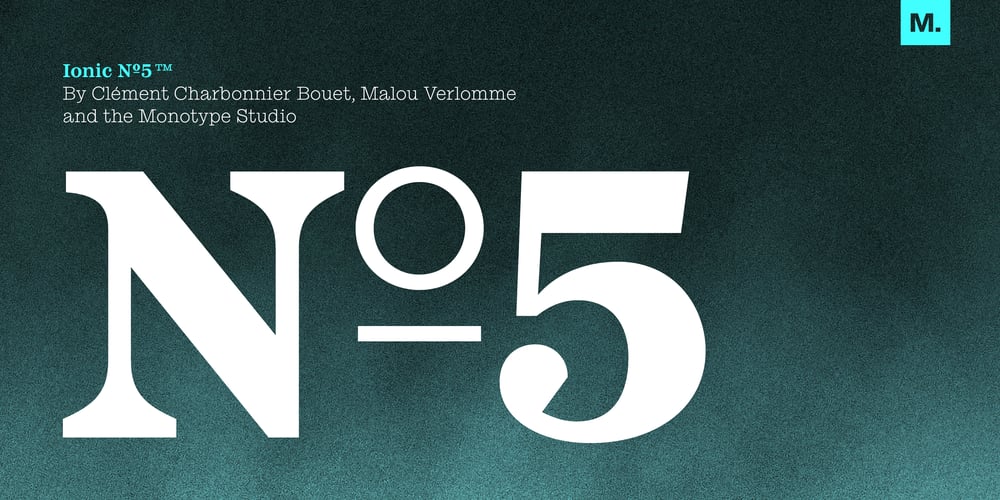
Ionic No 5 Font Family was designed by Malou Verlomme, Clement Charbonnier Bouet and published by Monotype. Ionic No 5 contains 10 styles and family package options. Ionic No5 is a refresh of a classic Linotype Clarendon-style serif, another restored classic from the Monotype library, much like the recent updates to Walbaum and Helvetica Now. The original typeface was designed to be printed and read at small sizes, popular with newspapers in the 20th Century at its birth. The restoration and refinement of this typeface has bestowed a greater sense of clarity and directness, smartly stylish, and an utterly captivating appeal. Because these styles were so popular for books and newspapers for so long we associate them with being editorial or bookish, not dull, but thoughtful. Designers today can use that association to their advantage as a visual shortcut to convey similar meaning and tone. More attention was given on modernising the typeface with precious use and the introduction of sharp edges & finishes. The thinnest weights can give a dancing typewriter aesthetic, being low stroke contrast. The heavy weights have an unquestionable presence on the page. Overall, the typeface has a richness and almost illustrative quality about it. The true depth of Ionic No.5 could enable each weight to be a poster by itself. Ionic N°5™ font field guide including best practices, font pairings and alternatives.